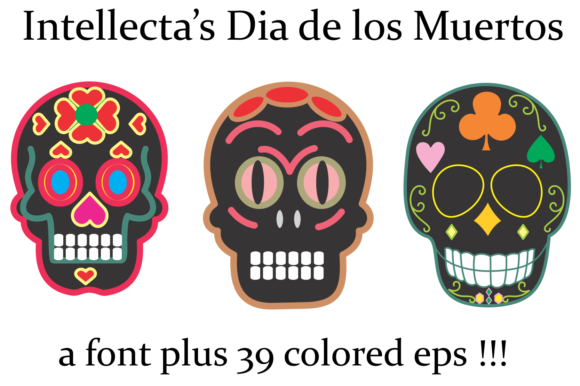
About Dia De Los Muertos Font
Dia de los Muertos is a collection of skulls based on the lively Mexican fiesta celebration where skulls are used as humorous epitaphs of people still alive, besides being a symbol of celebration. A work of Iza W that can be used for children in arts, arts crafts, among other applications. EXTRA AMAZING BONUS: a pack of colored high definition eps files of the skuls !!! 39 eps !!!